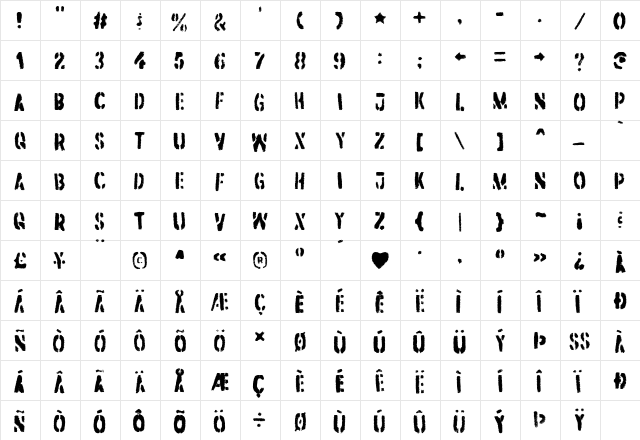
Dirtstorm Regular
Design Context for Dirtstorm Typeface
Dirtstorm is a composed and adaptable typeface that performs quietly and consistently across a wide range of design contexts.